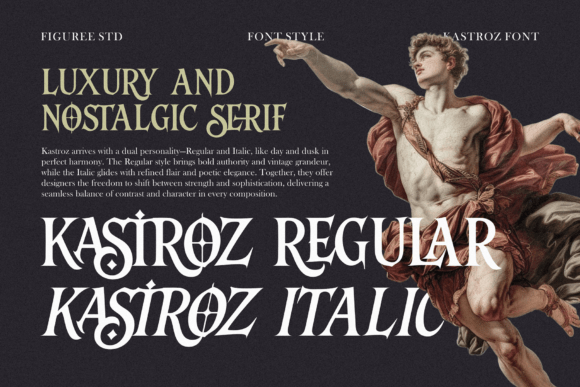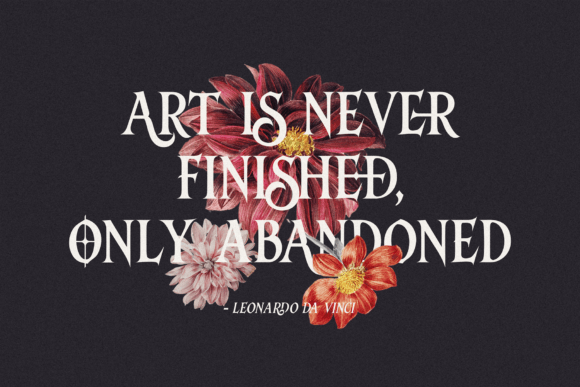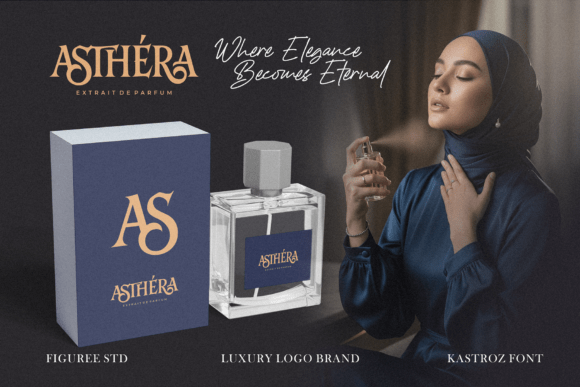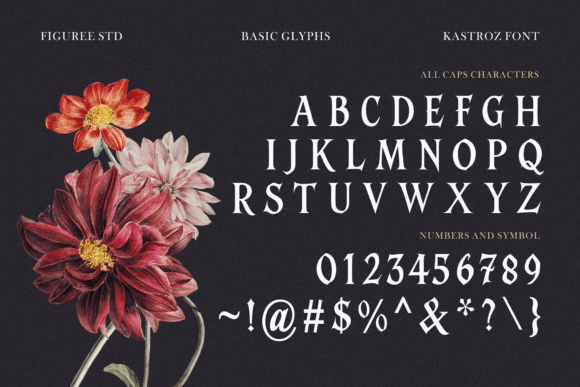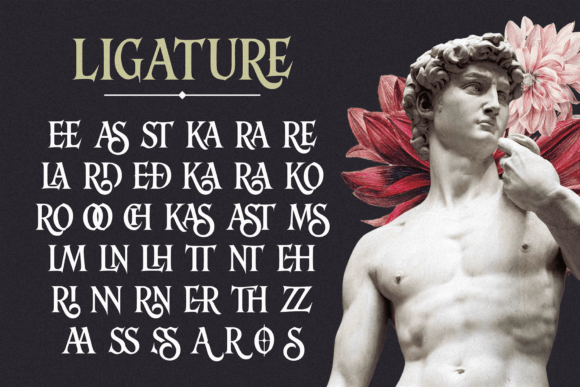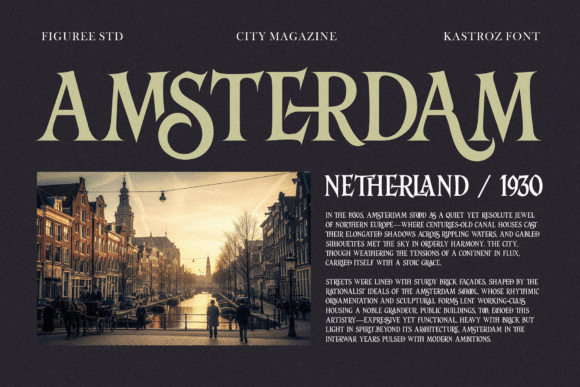
Introduction to Kastroz Font
As designers, we’ve all been there – staring at a blank canvas, searching for the perfect font to elevate our creative project. The pressure to deliver a high-quality design can be overwhelming, especially when working on premium brands or upscale visual identities. But what if you had a design resource that could instantly add sophistication and elegance to your typography? Enter the Kastroz Font, a luxury vintage serif font that’s about to revolutionize your design workflow.
With its all-caps characters and unique ligatures, the Kastroz Font is a game-changer for designers who demand the best. Whether you’re designing logos, packaging, editorial layouts, or brand identities, this font delivers a perfect blend of vintage charm and modern elegance. And the best part? You can download the Kastroz Font for free, complete with a transparent background, making it a valuable addition to any design arsenal.
Key Features of Kastroz Font
- Unique, modern design with a transparent background for easy customization
- Perfect for use in logos, branding materials, and other visual identity projects
Honest Review: Kastroz Font
As a designer, I’m always on the lookout for high-quality design resources to elevate my creative projects. Recently, I stumbled upon the Kastroz Font, and I’m excited to share my honest review.
- ✨ Unique and modern design style that’s perfect for futuristic and sci-fi themed projects
- ✨ Highly customizable, with a wide range of font weights and styles to choose from
- ⚠️ Limited support for certain languages, which may be a concern for designers working on international projects
- ⚠️ Not suitable for small text sizes, as the font can appear pixelated and unclear
Overall, I’m impressed with the Kastroz Font’s potential to elevate creative projects. While it’s not perfect, its unique design style and high level of customization make it a valuable addition to any design library. With a bit of experimentation and caution, I’m confident that designers can unlock the full potential of this design resource.
How to Use Kastroz Font
The Kastroz Font is a high-quality design resource perfect for creative projects. It offers a unique and modern aesthetic that can elevate any design. This guide will walk you through how to use the Kastroz Font in various design platforms.
Tips for Getting the Most Out of Kastroz Font
For the best results, use the Kastroz Font with a transparent background to give your design a clean and modern look. You can also experiment with different font sizes and colors to create a unique visual effect.
The Kastroz Font is perfect for creative projects such as graphic design, logo design, and branding. It’s also great for use in social media graphics, presentations, and marketing materials.